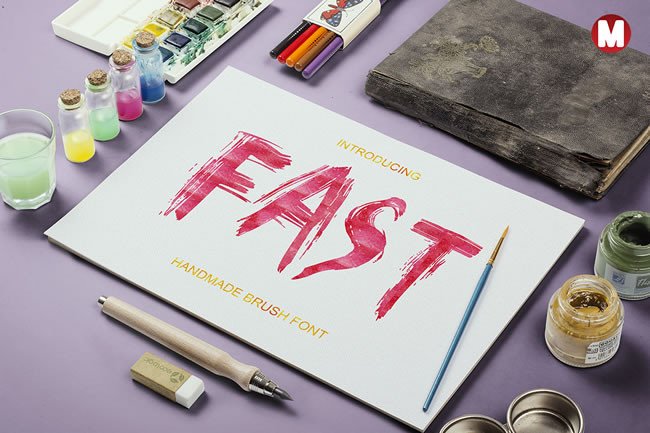
Step into the world of Fast Font, a renegade in the world of display fonts, and unleash your creativity like never before. This isn't just a font; it's a statement, an urban symphony of bold lines and unapologetic curves, ready to captivate and command attention wherever it goes.
With its rebellious spirit, Fast Font brings a raw, edgy aesthetic to your designs, perfect for leaving an indelible mark on posters, packaging, advertising, headlines, branding, signage, and any canvas that demands a touch of urban grit.
This typeface is not for the faint-hearted; it's for those who embrace the unconventional, who dare to push boundaries and make a statement. Let Fast Font be your weapon of choice, your tool to create designs that ignite conversations and leave a lasting impression.
So, what sets Fast Font apart from the crowd? It's the perfect fusion of boldness, attitude, and versatility, making it an undeniable force in the world of display fonts.
Its chunky letterforms exude strength and confidence, while its sharp angles and edgy details add a touch of rebellion and intrigue. Yet, beneath its tough exterior lies a surprising versatility, allowing it to adapt effortlessly to a wide range of design styles.
For those seeking to stand out, Fast Font is your secret weapon. Its captivating presence will turn heads and make your designs unforgettable. Unleash your inner rebel, embrace the urban edge, and let Fast Font take your creativity to dizzying new heights.
Don't settle for ordinary fonts; choose Fast Font and watch your designs transform into masterpieces that resonate with power, attitude, and undeniable style. Embrace the urban revolution, and let Fast Font be your guide to design greatness.